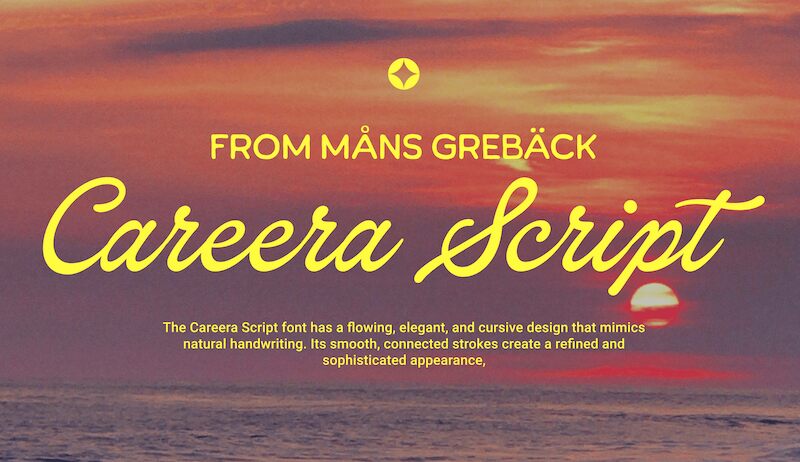
Careera Script font was created by the Swedish designer Måns Grebäck. This font combines an old school feel with elegance, sophistication, and a sense of contemporary style. Smooth and flowing cursive elements are used in the letters of this font to convey an expressive, stylish, and refined handwritten effect. Careera Script is a free font suitable for personal projects.
When it comes to use case possibilities, Careera Script is ideal for various ones. This includes designing greeting cards, posters, typography art, book covers, album covers, invitation cards, digital advertising, social media campaigns, product packaging, and branding or visual identity projects.
Careera Script is a stylish cursive typeface that flows with confidence and purpose. Designed with the charisma of a handwritten signature, it conveys a sense of momentum, reminiscent of the elegant stroke of a pen racing across paper.